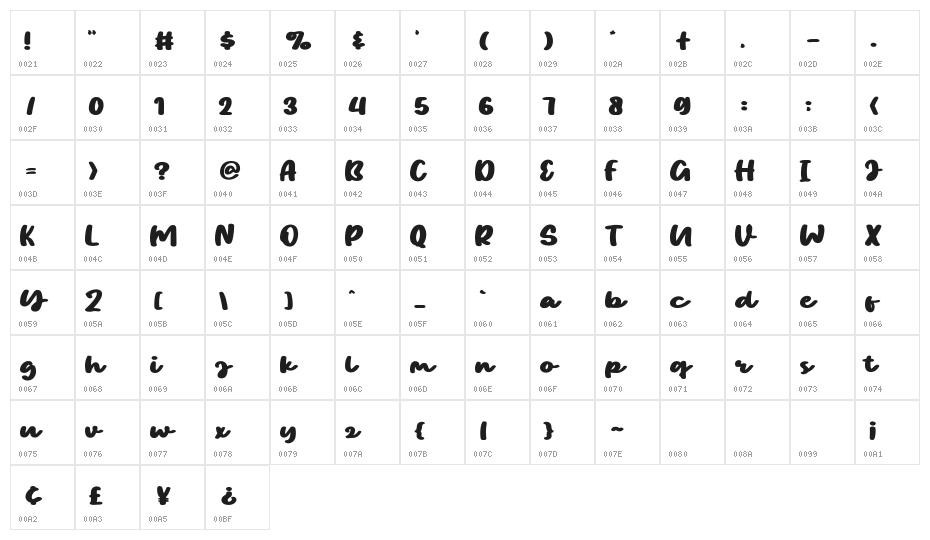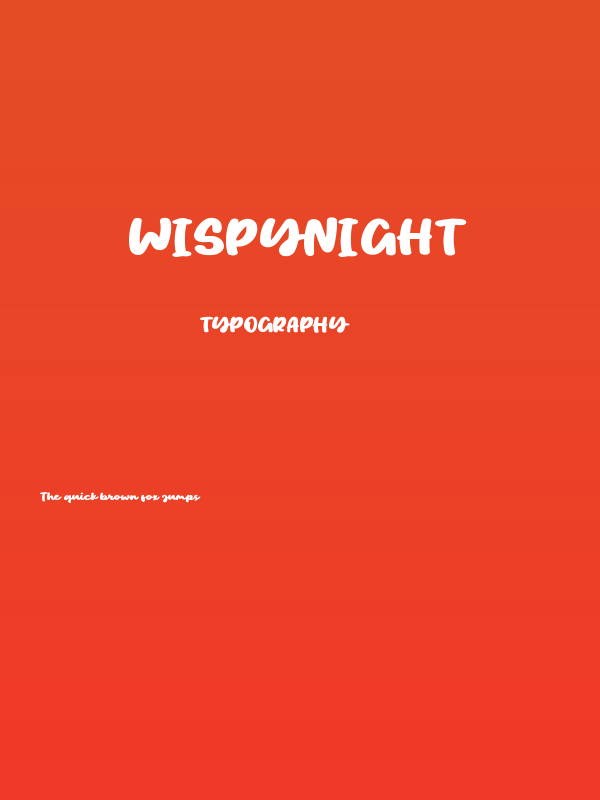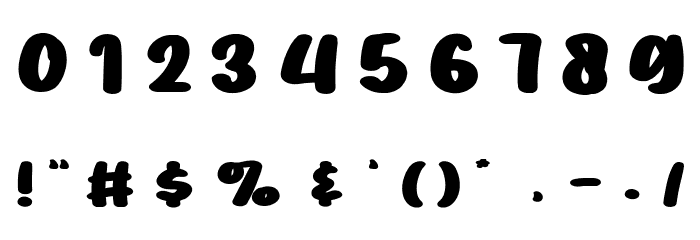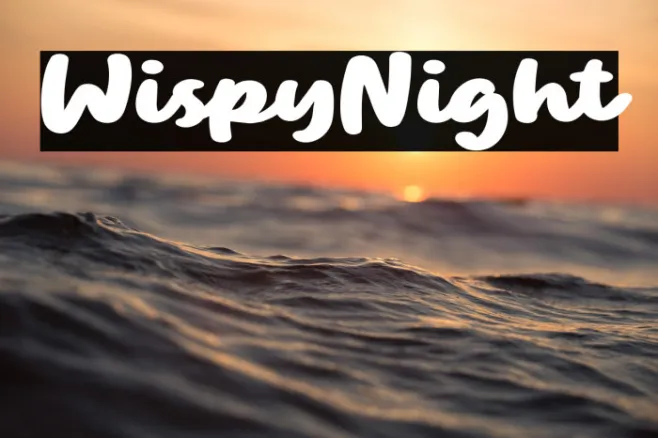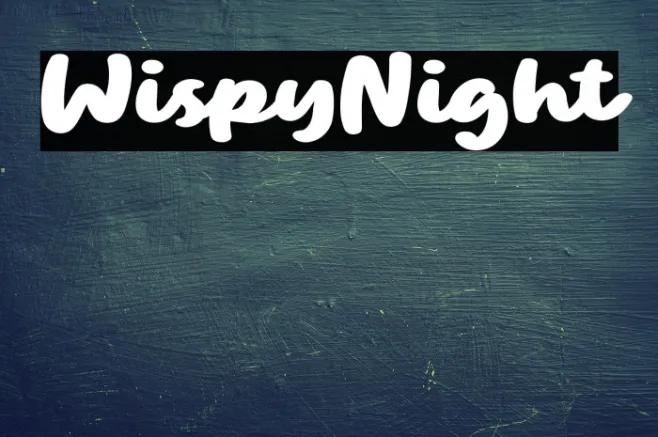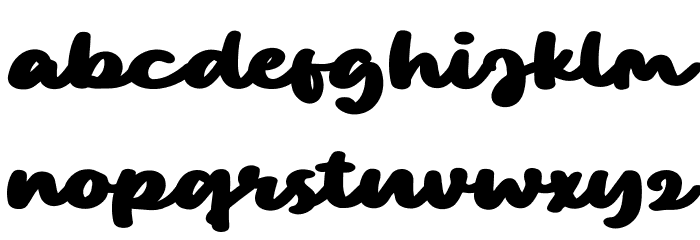
WispyNight Font
WispyNight Description
This font features a bold, playful script style with smooth, rounded edges and a consistent stroke width. The characters are closely spaced, creating a compact and cohesive appearance. Its whimsical and lively design is ideal for projects that require a touch of fun and creativity. The uppercase and lowercase letters maintain a uniformity that enhances readability while adding a unique flair. The numerals and special characters are designed to complement the overall style, ensuring versatility across various applications.
| Proposed Projects | Ideal for children's book covers, playful branding, greeting cards, and creative posters. |